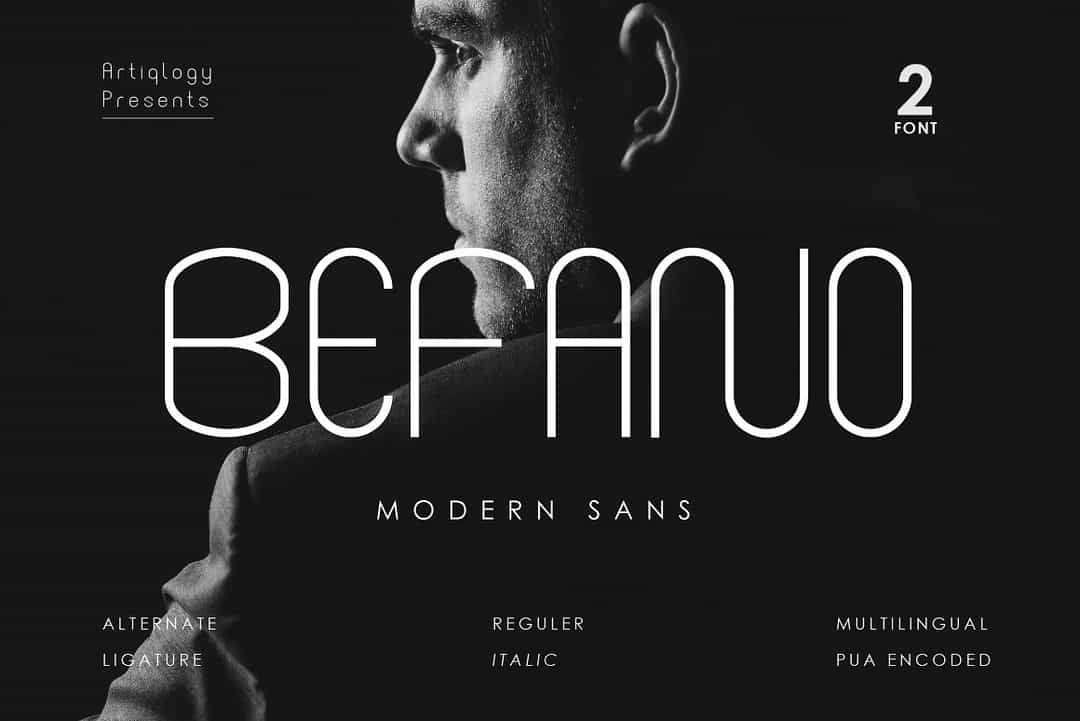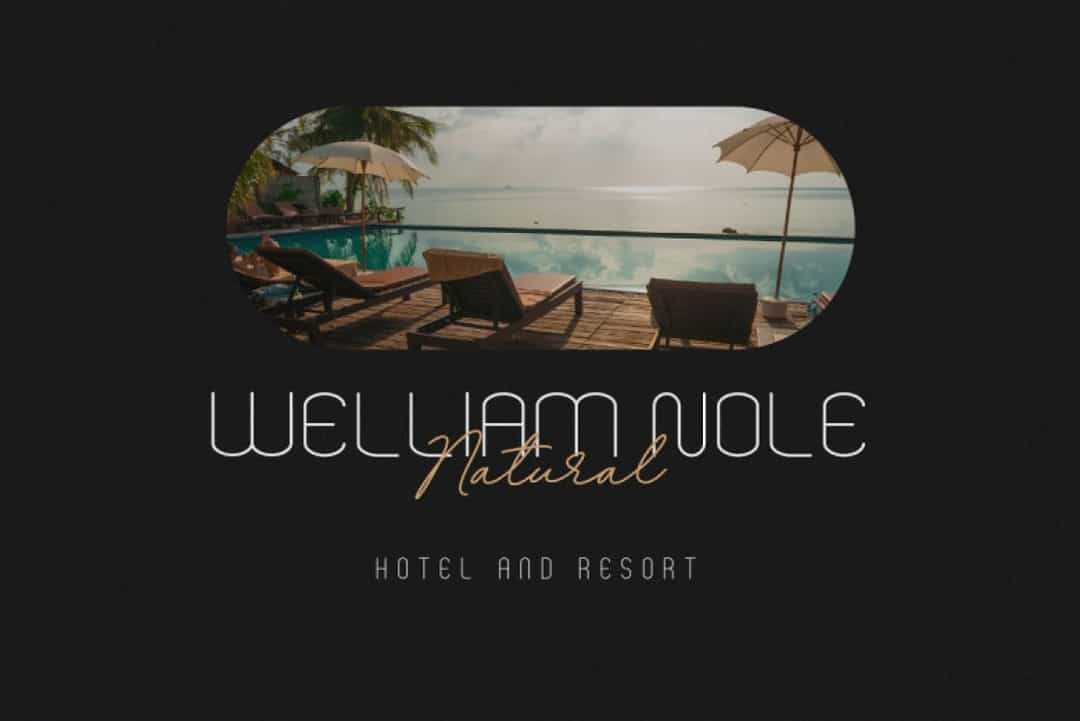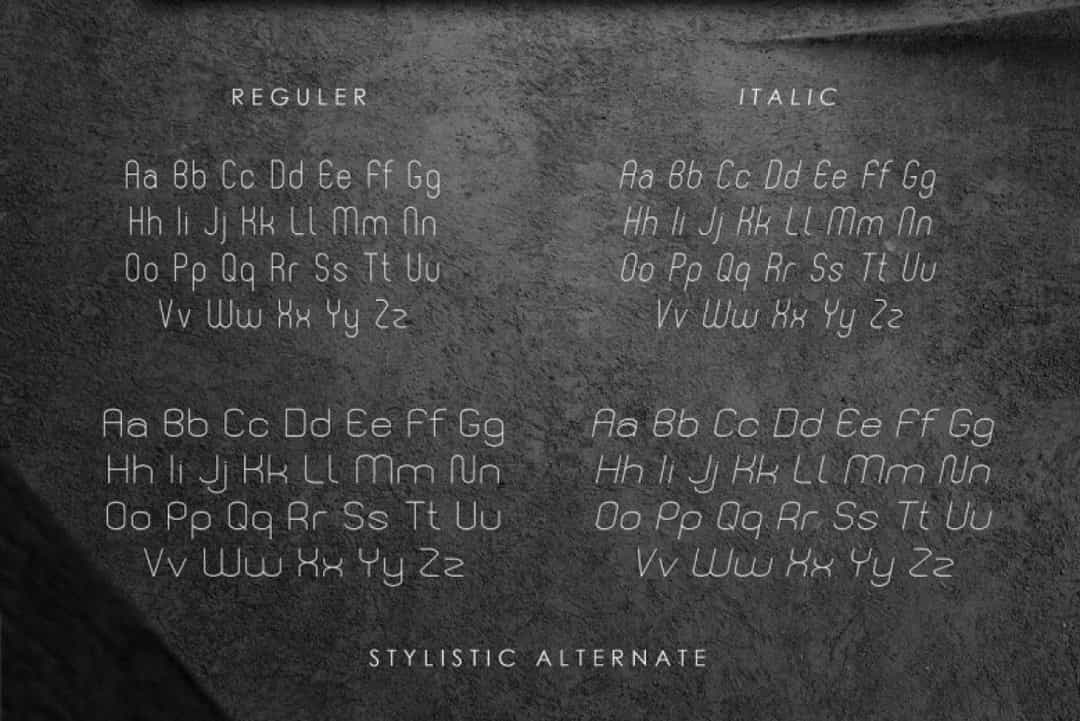
BEFANO by Artiqlogy Studio is an accessible and contemporary sans serif font designed with playfulness in mind, perfect for creating unique designs – be they headlines, captions or shirt branding at school or university campuses and many more.